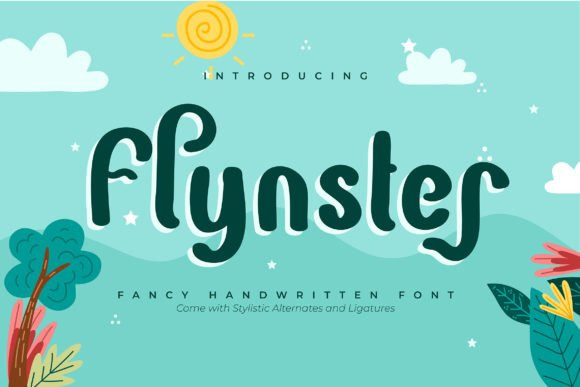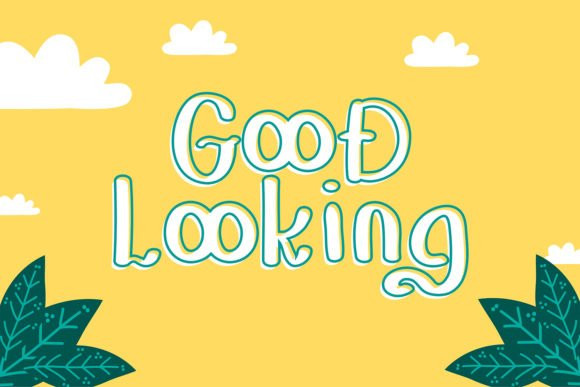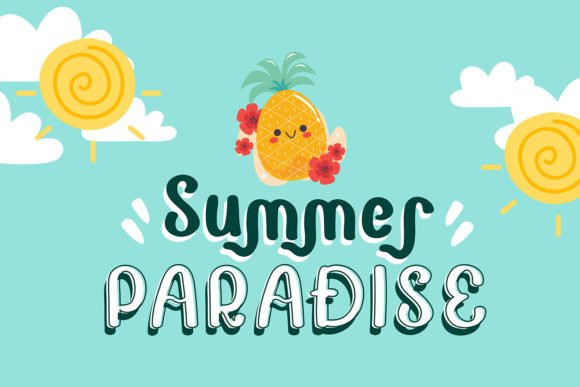
Flynster Font
Flynster is a modern, stylish and brushed handwritten font. Due to its relaxed nature, it can be applied to a variety of designs, both formal and informal.